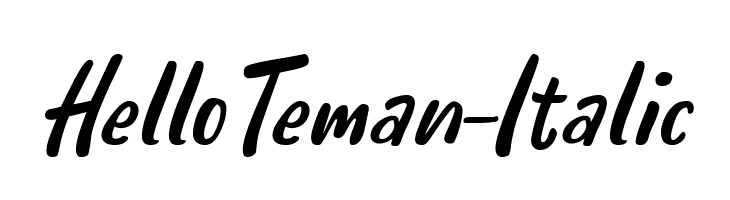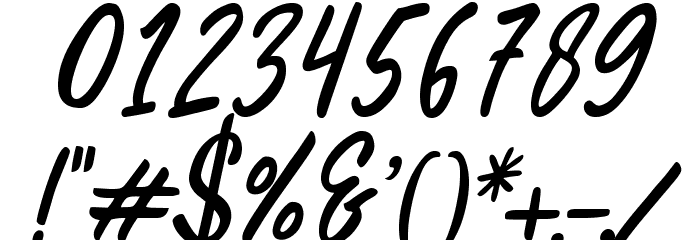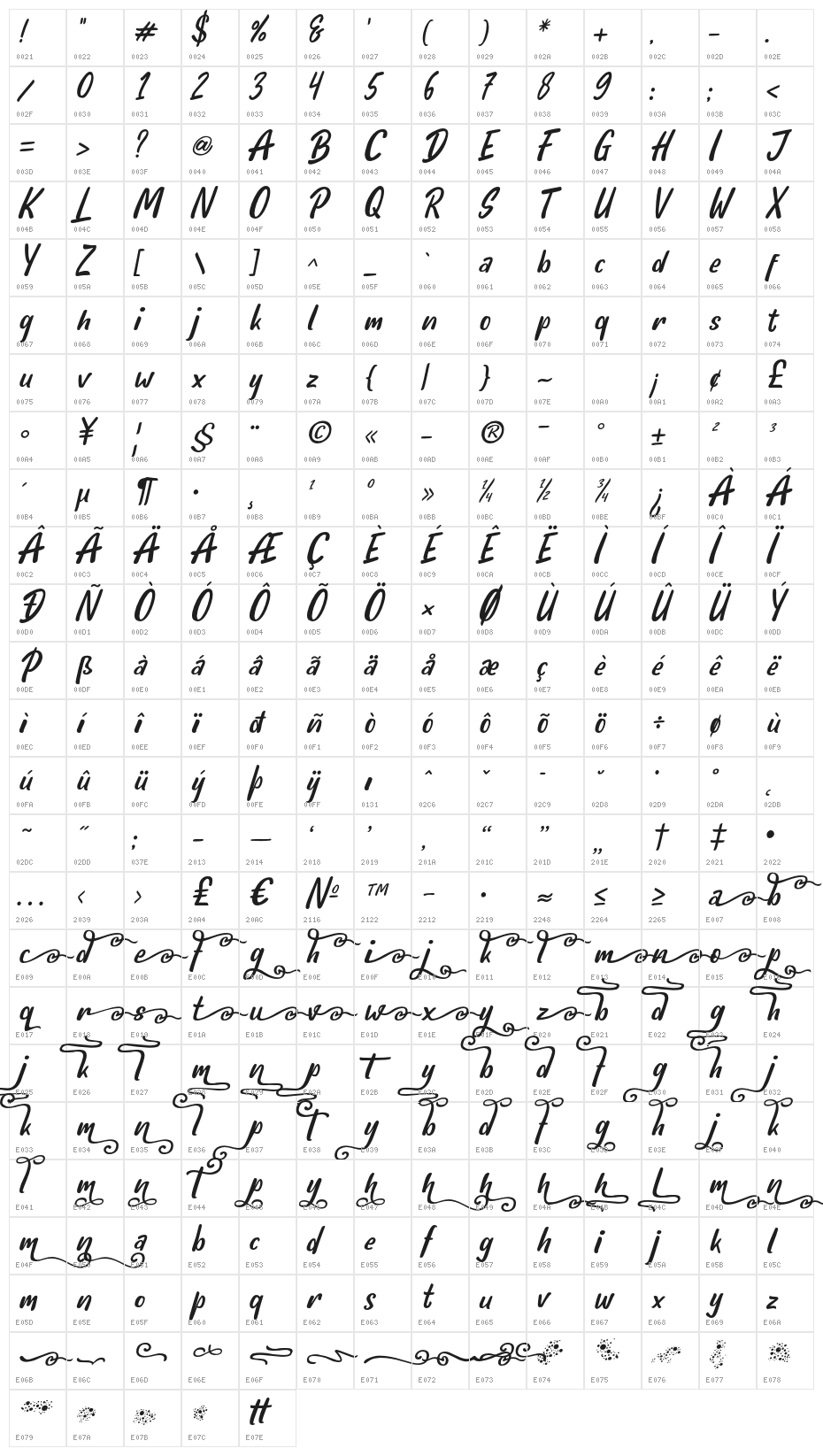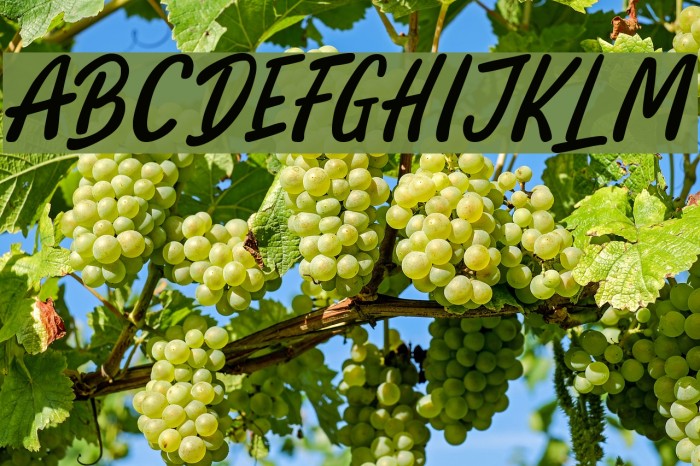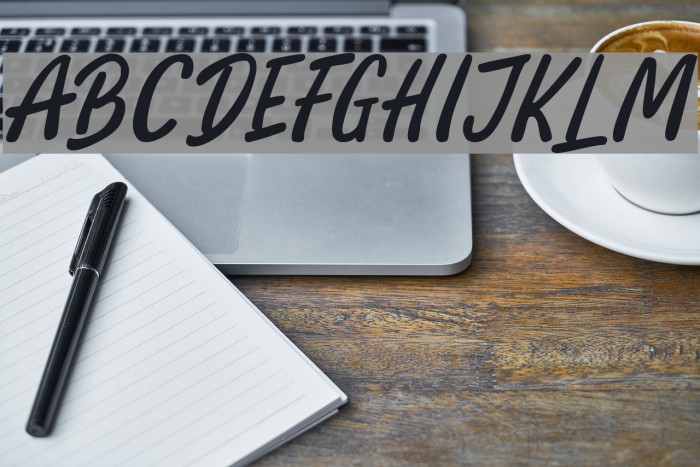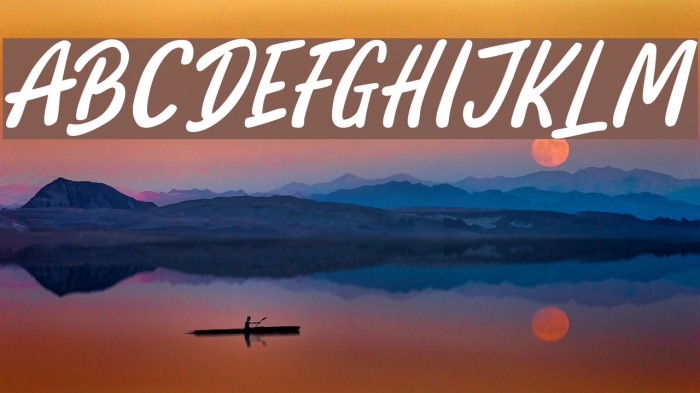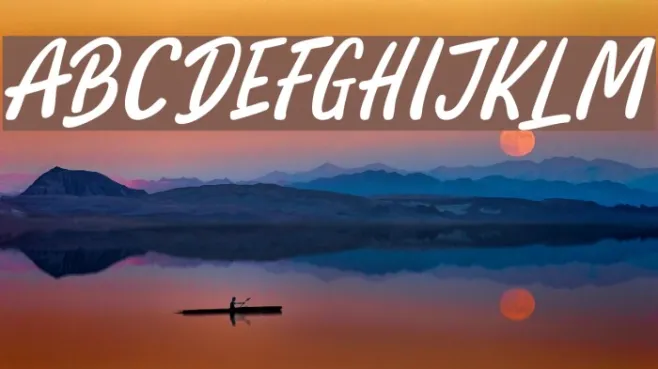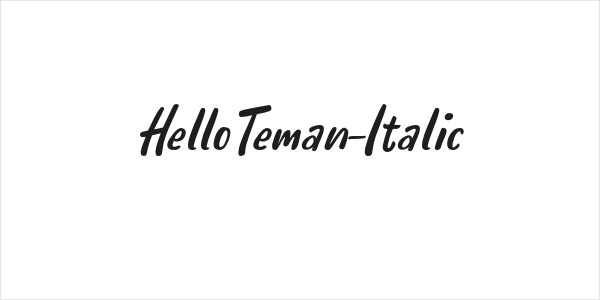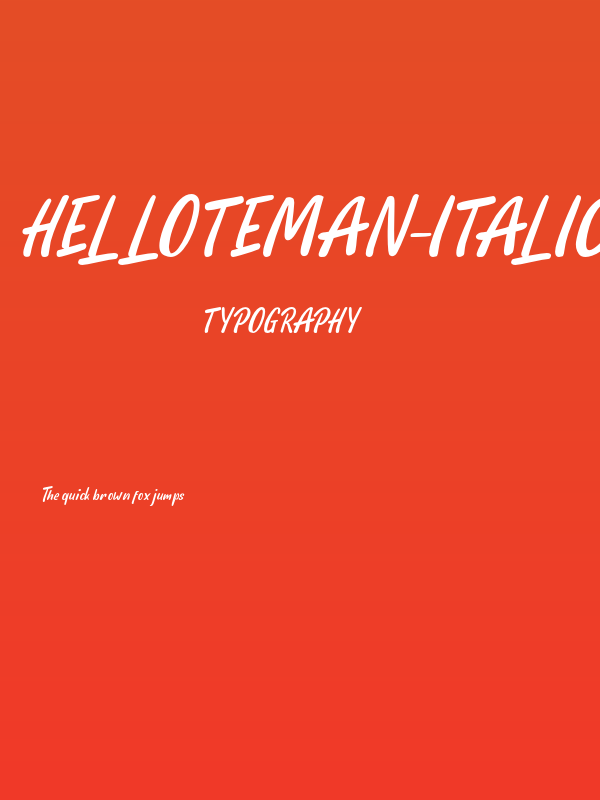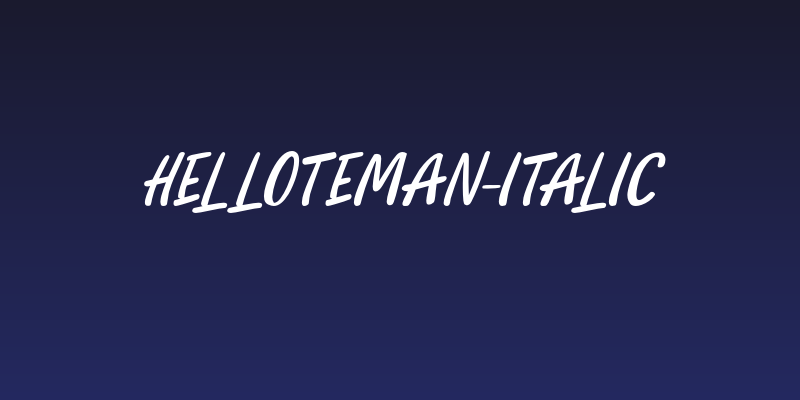
HelloTeman-Italic Font
HelloTeman-Italic Description
This font features a dynamic and flowing script style, characterized by its smooth, cursive letterforms that convey a sense of elegance and movement. The uppercase letters are bold and slightly slanted, giving a sense of forward motion, while the lowercase letters maintain a consistent rhythm with their rounded and connected strokes. The numerals are designed to match the fluidity of the alphabet, ensuring a cohesive look across all characters. Special characters are included, maintaining the same stylistic approach, making this font versatile for various design needs.
| Proposed Projects | Ideal for branding projects, wedding invitations, greeting cards, and any design that requires a personal, handwritten touch. |